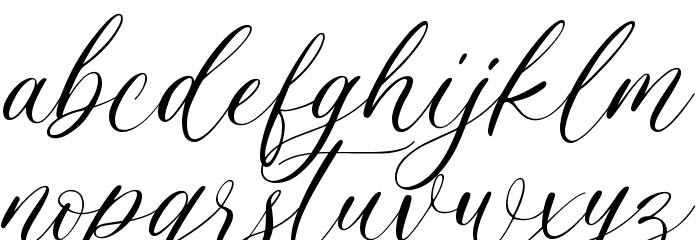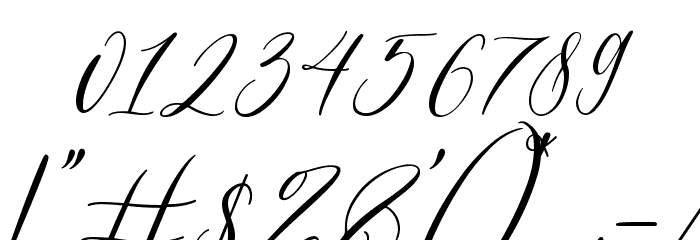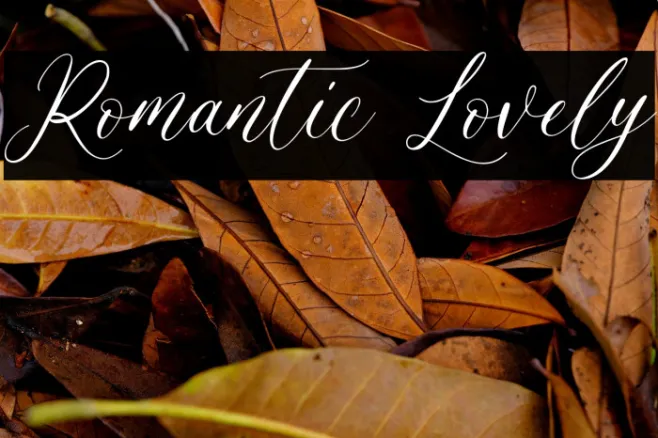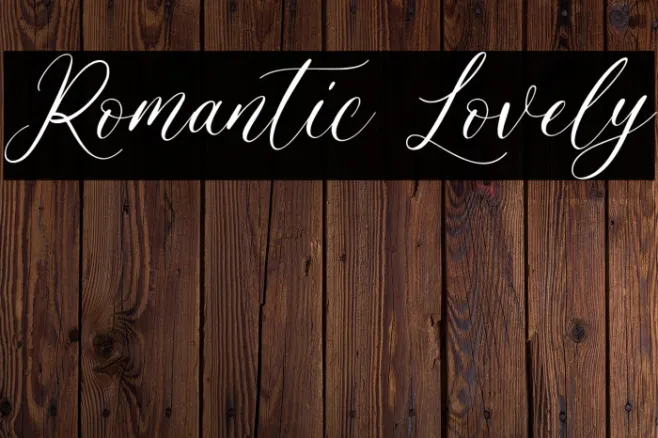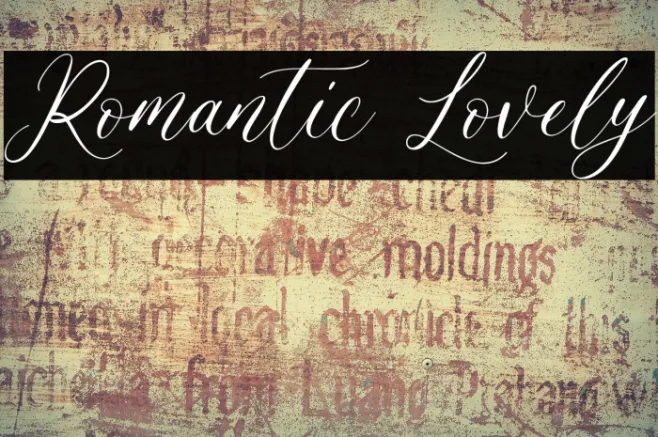
Romantic Lovely Font
This elegant script font features flowing, cursive letterforms with a romantic and sophisticated style. The uppercase letters are gracefully elongated with delicate loops and swashes, while the lowercase letters maintain a consistent, fluid motion that enhances readability. The numbers and special characters are designed with the same attention to detail, ensuring a cohesive appearance across all text. This font's intricate design and smooth curves make it ideal for projects that require a touch of elegance and charm.
A romantic and elegant script font with flowing, cursive letterforms.
- Font: Romantic Lovely
- Proposed Projects: Ideal for wedding invitations, greeting cards, branding, and elegant logos.
- Category: Script
- Overall Style: Romantic
- Use Case: Headlines, Invitations, Logos